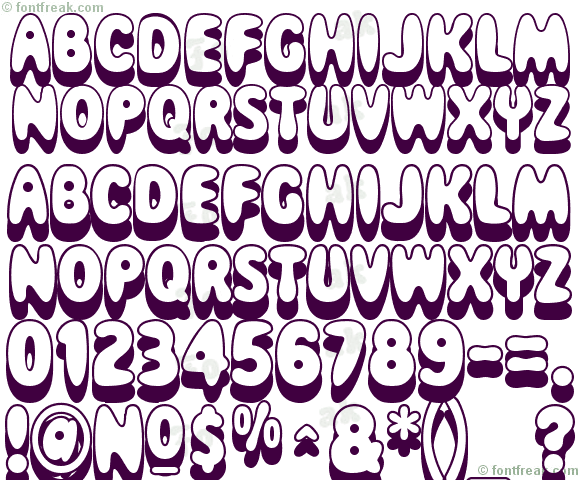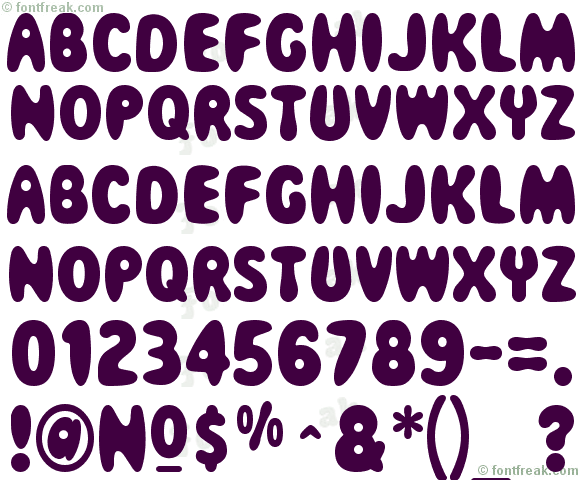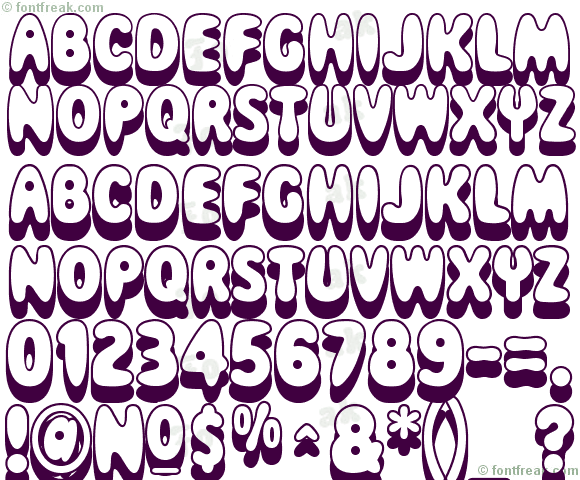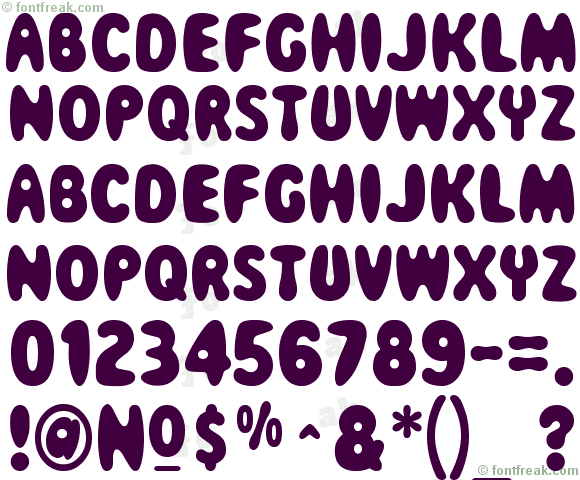
About Magical Mystery Tour
The Magical Mystery Tour font, created by Keith Bates, is a captivating display typeface that brings a sense of whimsy and intrigue to any design project. This freeware font is inspired by the lettering used on the iconic record sleeve of The Beatles' "Magical Mystery Tour," making it a delightful choice for those seeking a nostalgic touch. The font features a playful, rounded design with a bold stroke weight, which lends it a strong presence while maintaining an approachable aesthetic. The outline and shadow effects add depth and dimension, enhancing its visual appeal.
With its unique characteristics, the Magical Mystery Tour font is perfect for a variety of creative applications. It shines in contexts such as movie posters, where its eye-catching style can draw attention and evoke a sense of adventure. Additionally, it works wonderfully for children's book titles, offering a fun and engaging look that resonates with young readers. Wedding invitations can also benefit from its charming design, adding a hint of magic to the special occasion. Furthermore, small business owners can utilize this font in branding materials, capturing the essence of their creative ventures with a distinctive flair.
Targeting graphic designers, content creators, and small business owners, the Magical Mystery Tour font free download is an accessible option for those looking to elevate their projects. Its unique blend of playfulness and nostalgia makes it a standout choice in a sea of typefaces. Whether you are crafting promotional materials, designing merchandise, or simply exploring new creative avenues, this font offers versatility and charm that can enhance your work. With its distinctive style and rich background, the Magical Mystery Tour font is sure to leave a lasting impression.